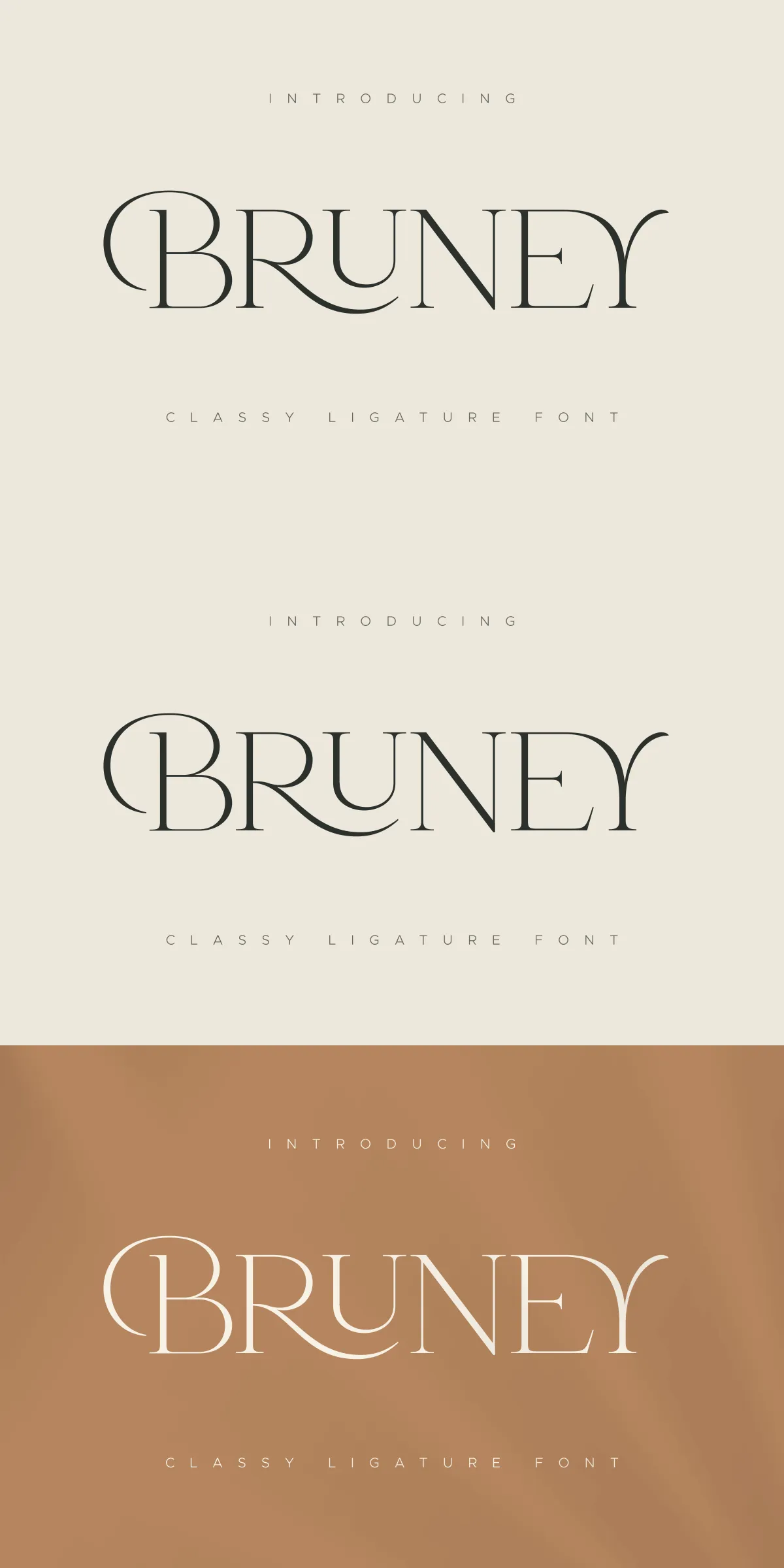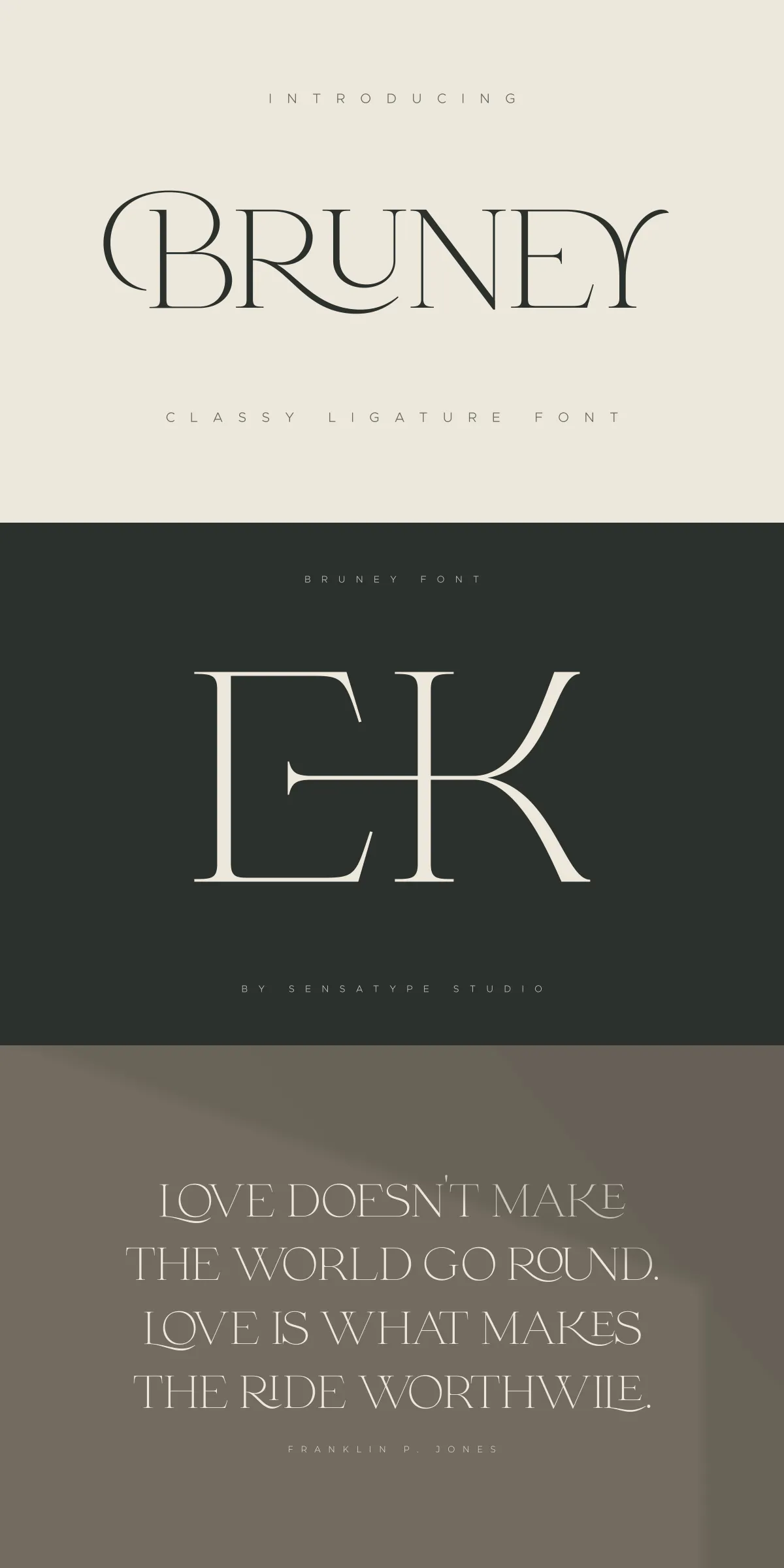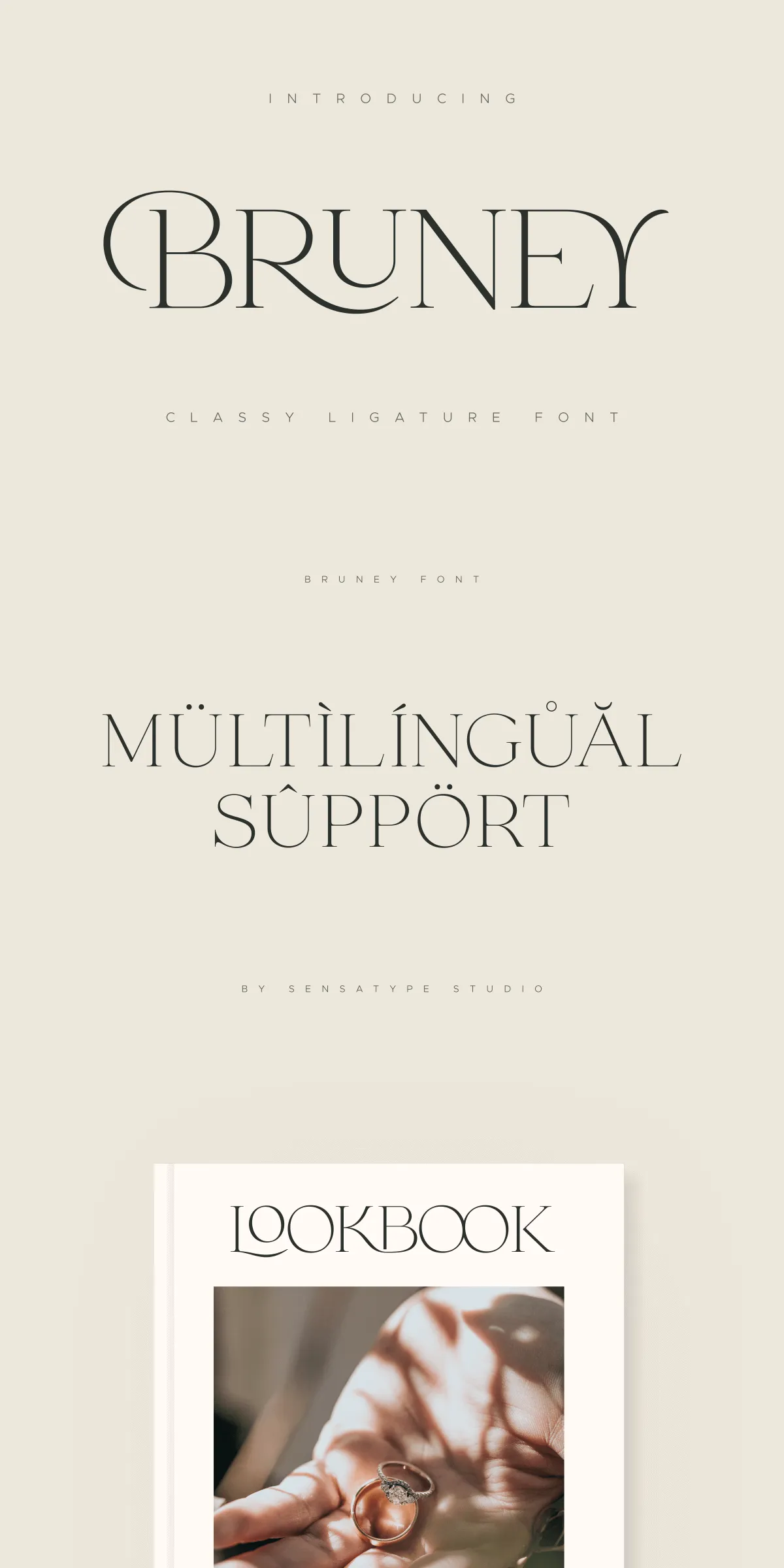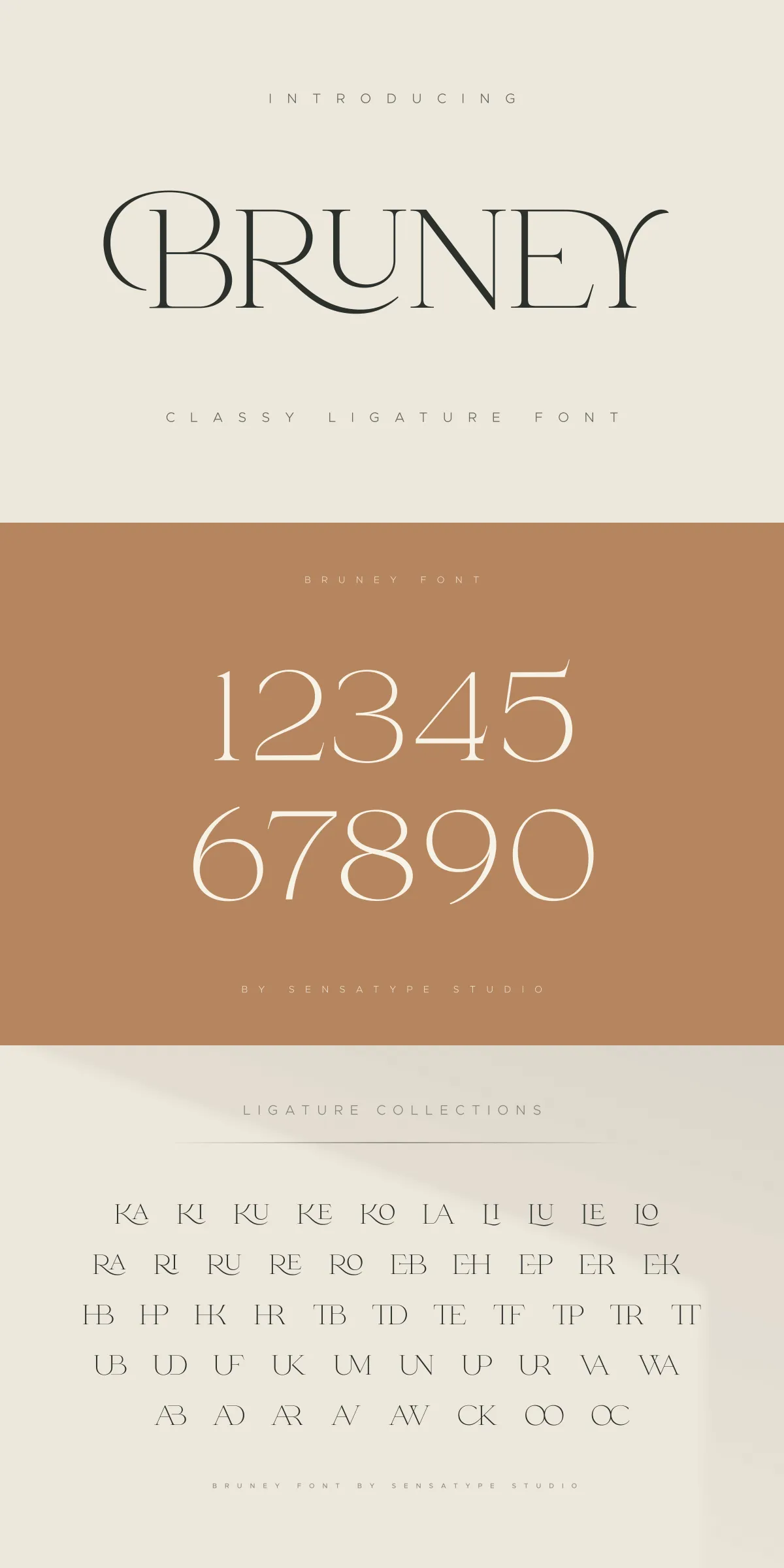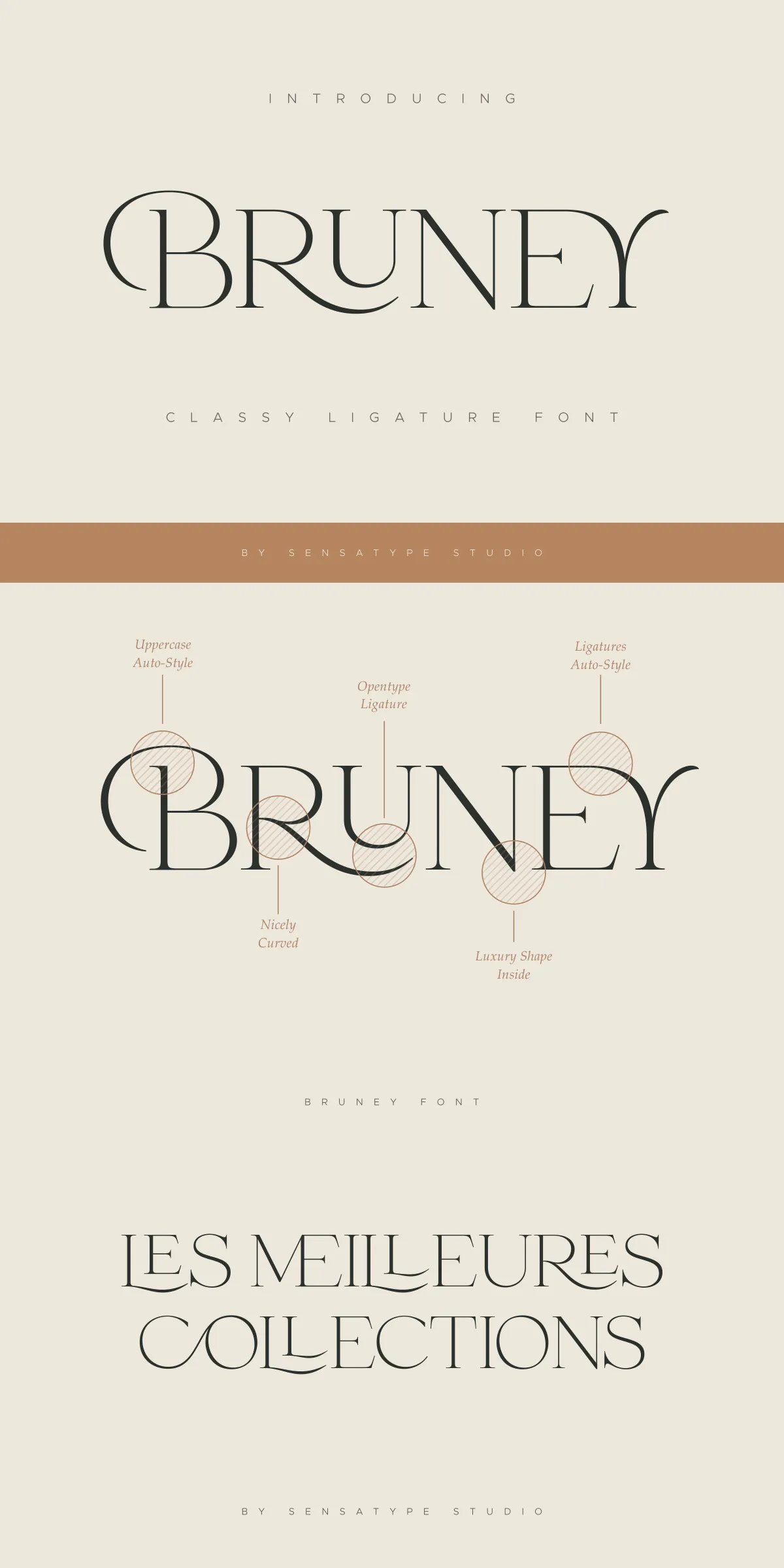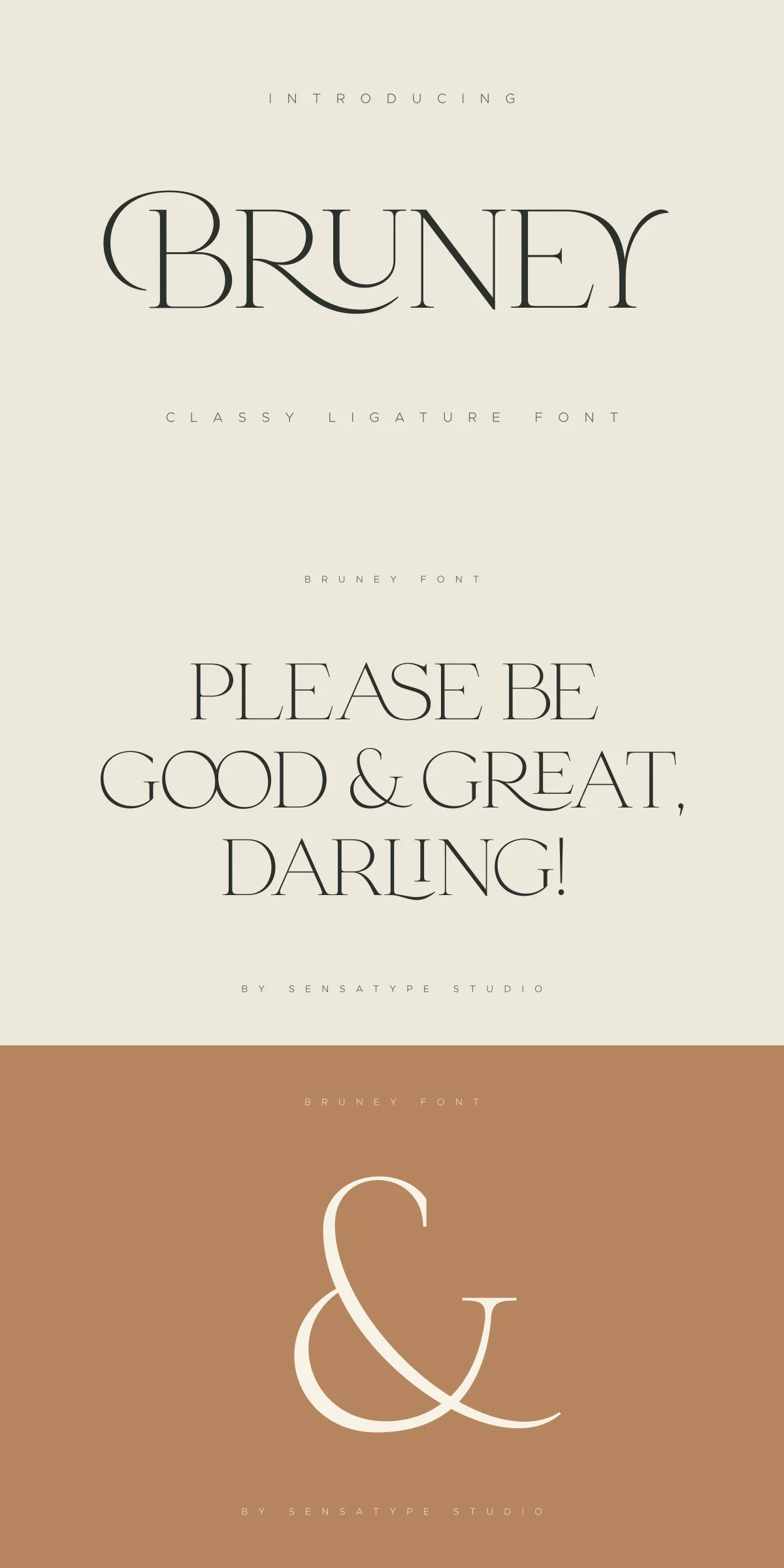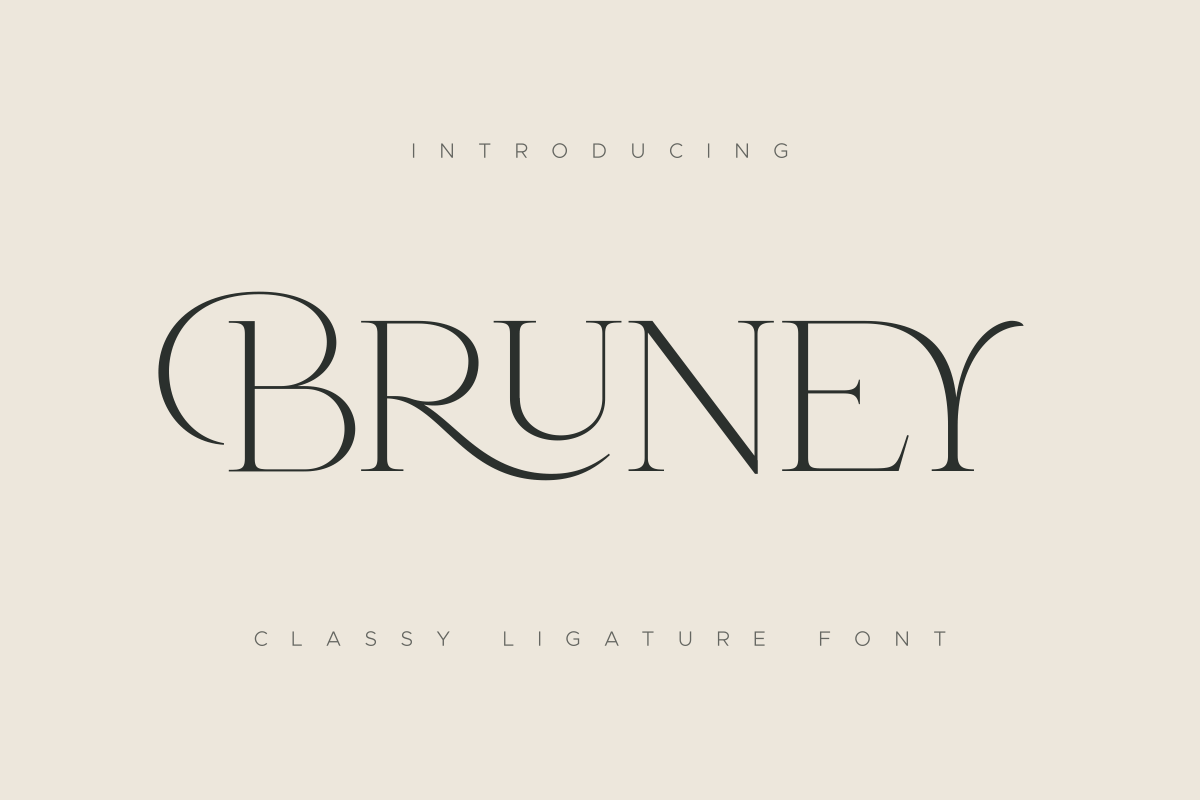
Bruney – Classy Ligature Font
Meet Bruney — a boldly distinctive, classically refined font engineered for designers who demand excellence in identity creation. Born from years of real-world experience in corporate branding, Bruney was meticulously crafted to meet the most sophisticated design challenges: creating logos that are not only unique but also inherently elegant, memorable, and full of character.
More than just a typeface, Bruney is a creative catalyst. Designed specifically for branding and logo design, it transforms ordinary words into powerful visual identities. Whether you’re building a luxury fashion label, a premium tech startup, or a boutique service brand, Bruney gives your name presence, prestige, and personality from the very first letter.
What Sets Bruney Apart? Precision Craftsmanship Meets Artistic Soul
Every curve, stroke, and ligature in Bruney has been designed with intention. Unlike mass-produced fonts that feel generic, Bruney was developed with a designer’s eye — balanced, expressive, and refined. It’s not just about how it looks. It’s about how it makes your brand feel.
Elegant Ligatures That Elevate Your Design
To add that extra layer of sophistication, Bruney includes a full suite of custom ligatures. These are not mere shortcuts — they’re intentional design features that bring harmony, rhythm, and flair to your text.
• KA, KI, KU, KE, KO — seamless transitions from consonant clusters.
• LA, LI, LU, LE, LO — smooth, flowing connections that enhance readability.
• RA, RI, RU, RE, RO — elegant extensions that create visual movement.
• EB, EH, EP, ER, EK — refined finishes for professional-grade typography.
• HB, HP, HK, HR, TB, TD, TE, TF, TP, TR, TT — advanced ligatures for dramatic impact.
• UB, UD, UF, UK, UM, UN, UP, UR — subtle yet powerful details that set your design apart.
• VA, WA, AB, AD, AR, AV, AW, CK, OO, OC, CA, CY, EA, EB, ED, ES — extended sequences for rich, complex layouts.
• GB, GH, GK, GB, GR, HB, HP, HR, HK, KB, KD, KS, EY, FY, LS, ME, MU, MB, MD, MF, MH, MK, MP, MR — comprehensive coverage for advanced typographic control.
• NN, SO, RS, SB, SD, SE, SF, SP, SY, SR, ST, SS, LL, UN, CS — final touches that ensure typographic excellence at every level.
These ligatures transform standard text into visually compelling expressions — giving your brand a unique voice, one letter at a time.
• Uppercase letters — bold, crisp, and perfectly proportioned for impactful headlines and logos.
• Lowercase letters — elegant and balanced for body text, taglines, and branding copy.
• Full multilingual support — covers Latin-based languages with complete diacritic coverage (accents, umlauts, etc.), ideal for international branding.
• Arabic numerals — clean and modern for dates, pricing, and data.
• Punctuation & symbols — fully included and professionally spaced.
• OpenType features — access to all ligatures, stylistic alternates, and contextual options via design software.
With high-resolution vector outlines, precise kerning, and consistent stroke thickness, Bruney renders flawlessly at any size — from a business card to a giant billboard.
Create a Brand That Stands Out — With Bruney, You’re Not Just Typing, You’re Designing Legacy
Bruney isn’t for those who settle for average. It’s for visionaries, creators, and professionals who believe that every font choice is a branding decision. It’s for brands that want to be remembered not just for what they sell, but how they say it.
Who Should Use Bruney?
• Graphic designers crafting premium logos and brand identities.
• Marketing teams creating high-impact campaigns and packaging.